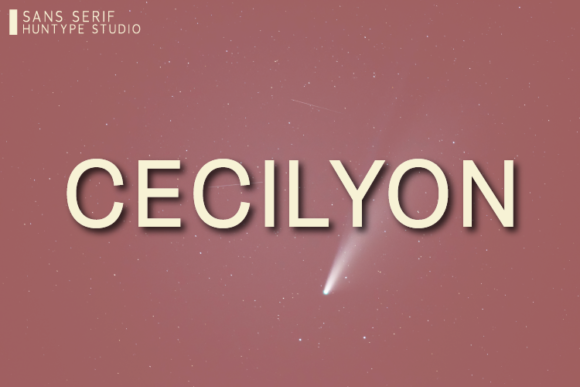
Cecilyon Font: Elevate Your Designs with a Minimal and Neat Sans Serif
Are you on the hunt for a font that can effortlessly elevate your creative projects? Look no further than Cecilyon, a stunning minimal and neat sans serif font. With its versatility and wide range of applications, Cecilyon is the perfect addition to any designer’s toolkit. In this article, we’ll dive into the world of Cecilyon, exploring its features, benefits, and uses, and discover how it can make your designs stand out.
What is Cecilyon Font?
Cecilyon is a modern sans serif font, characterized by its clean lines, simplicity, and elegance. Its minimalistic design makes it an excellent choice for a wide range of projects, from branding and advertising to packaging and digital media. The font’s neat and organized structure ensures that it remains highly legible, even at smaller font sizes.
Key Features of Cecilyon Font
- Minimal and Neat Design: Cecilion’s sans serif design is sleek and modern, making it perfect for contemporary projects.
- High Legibility: The font’s clean structure ensures that it remains easy to read, even at smaller font sizes.
- Versatility: Cecilyon can be used in a wide range of projects, from digital media to print materials.
- Easy to Pair: The font’s neutral design makes it easy to pair with other fonts, allowing you to create stunning font combinations.
Benefits of Using Cecilyon Font
So, why choose Cecilyon for your next project? Here are just a few benefits of using this amazing font:
- Instant Professionalism: Cecilion’s sleek design instantly adds a touch of professionalism to your projects.
- Improved Readability: The font’s high legibility ensures that your message is conveyed clearly and effectively.
- Enhanced Creativity: Cecilion’s versatility and neutral design make it the perfect canvas for your creative ideas.
- Time-Saving: With Cecilyon, you can quickly and easily create stunning designs, saving you time and effort.
Use Cases for Cecilyon Font
Cecilyon is an incredibly versatile font, suitable for a wide range of projects and applications. Here are just a few examples of how you can use Cecilyon:
- Branding and Logo Design: Create a lasting impression with Cecilion’s sleek and modern design.
- Digital Media: Use Cecilyon in your website designs, social media graphics, and digital advertising.
- Print Materials: Add a touch of elegance to your brochures, flyers, and business cards.
- Packaging Design: Make your products stand out on store shelves with Cecilion’s clean and modern design.
Tips for Using Cecilyon Font
To get the most out of Cecilyon, here are a few tips to keep in mind:
- Experiment with Font Sizes: Cecilion looks great at a range of font sizes, so don’t be afraid to experiment.
- Pair with Other Fonts: Try pairing Cecilyon with other fonts to create stunning font combinations.
- Use in Combination with Images: Cecilion works beautifully in combination with images, so try using it to add text to your graphics.
In conclusion, Cecilyon is a powerful and versatile font that can elevate your designs and take your creativity to the next level. With its minimal and neat sans serif design, Cecilyon is perfect for a wide range of projects, from branding and advertising to packaging and digital media. Whether you’re a designer, craftsperson, or DIY enthusiast, Cecilyon is an excellent addition to your toolkit.